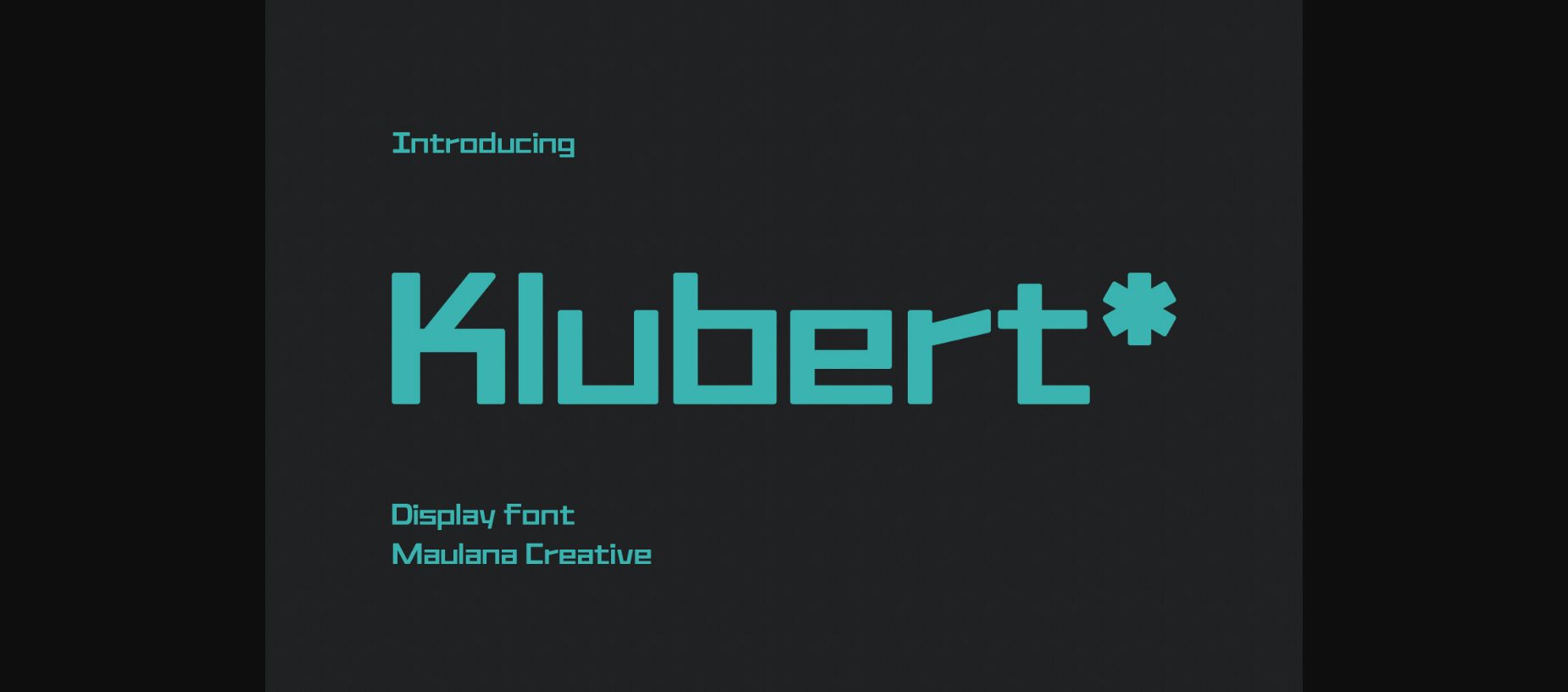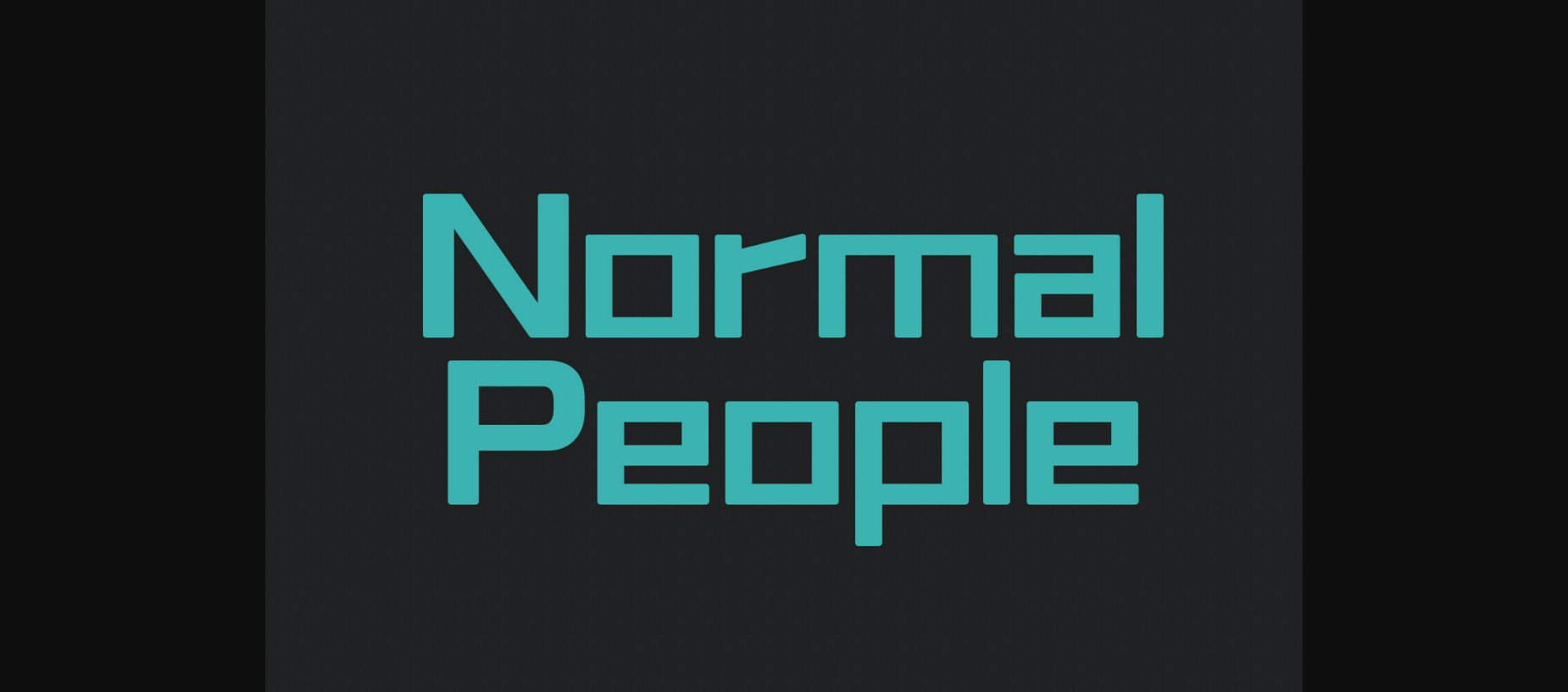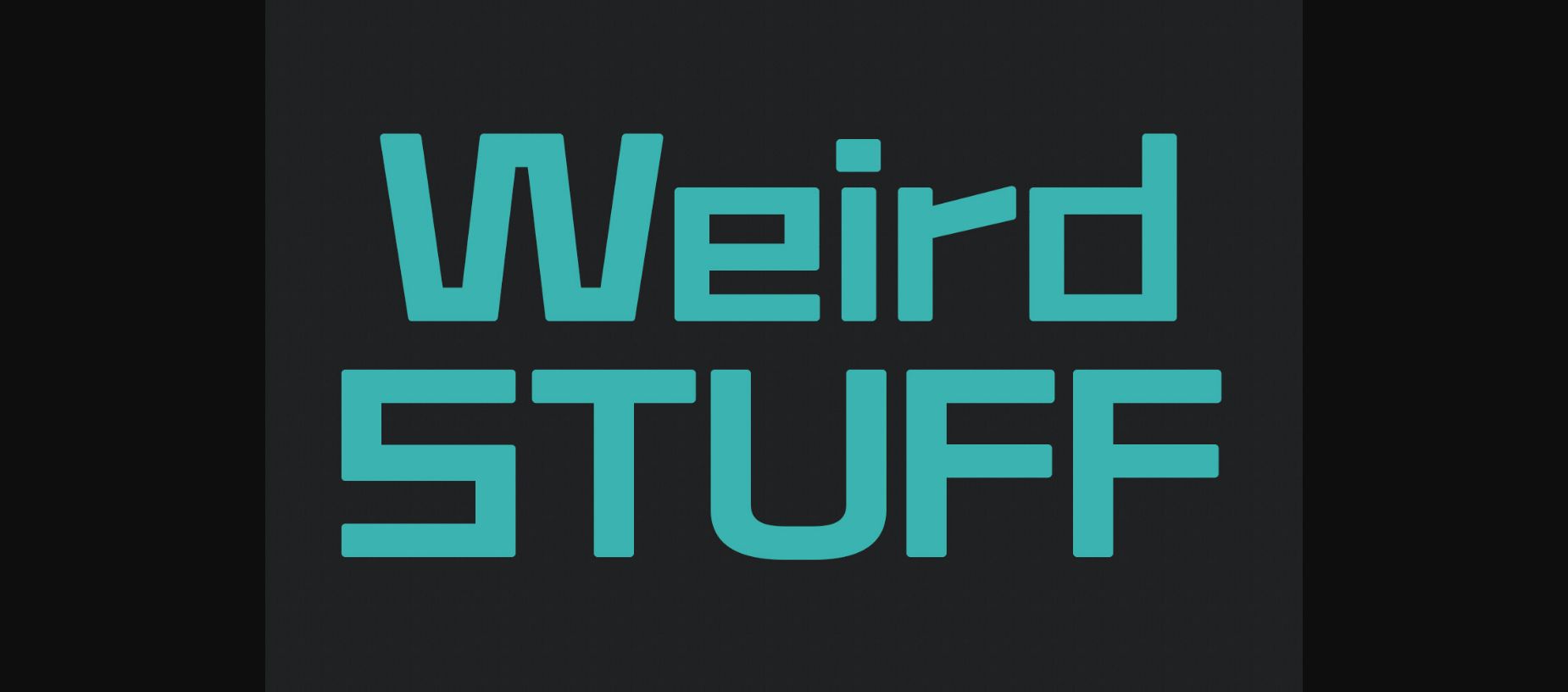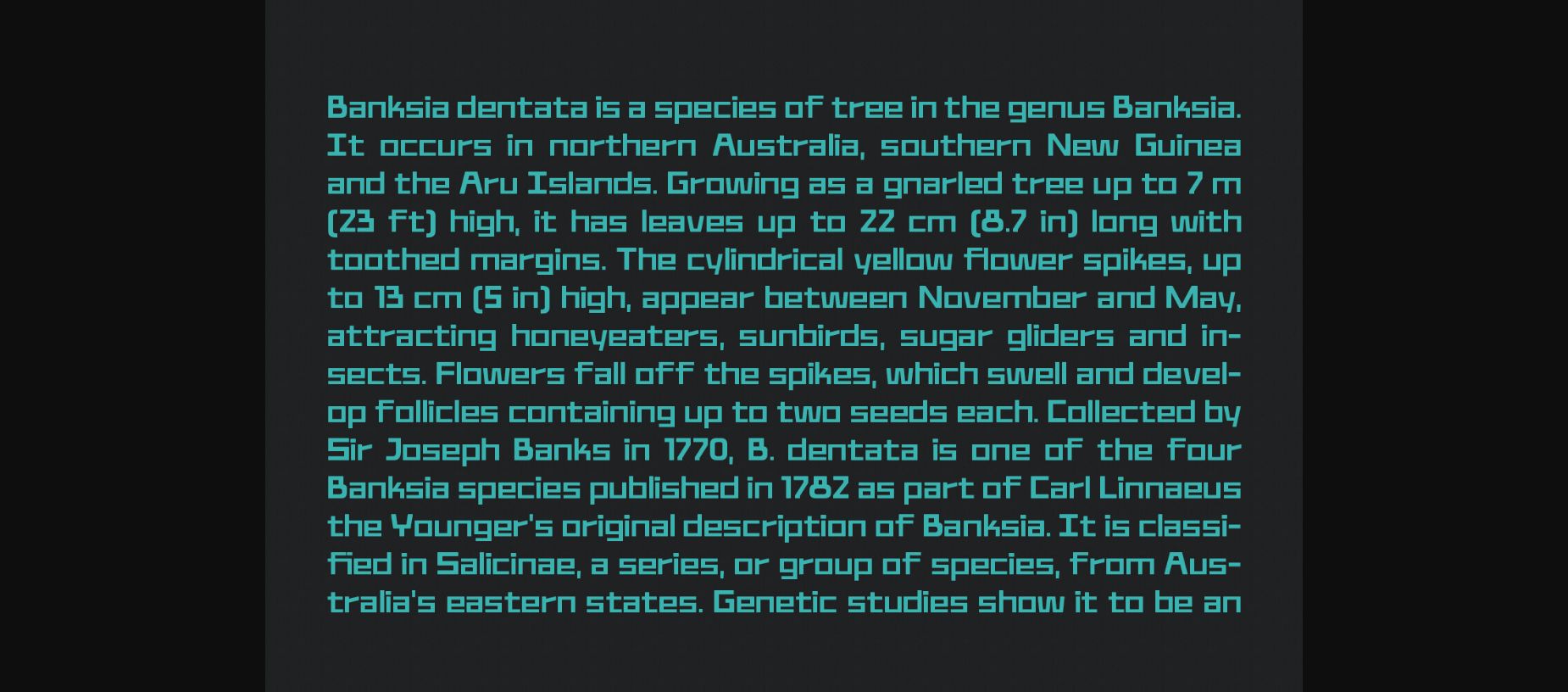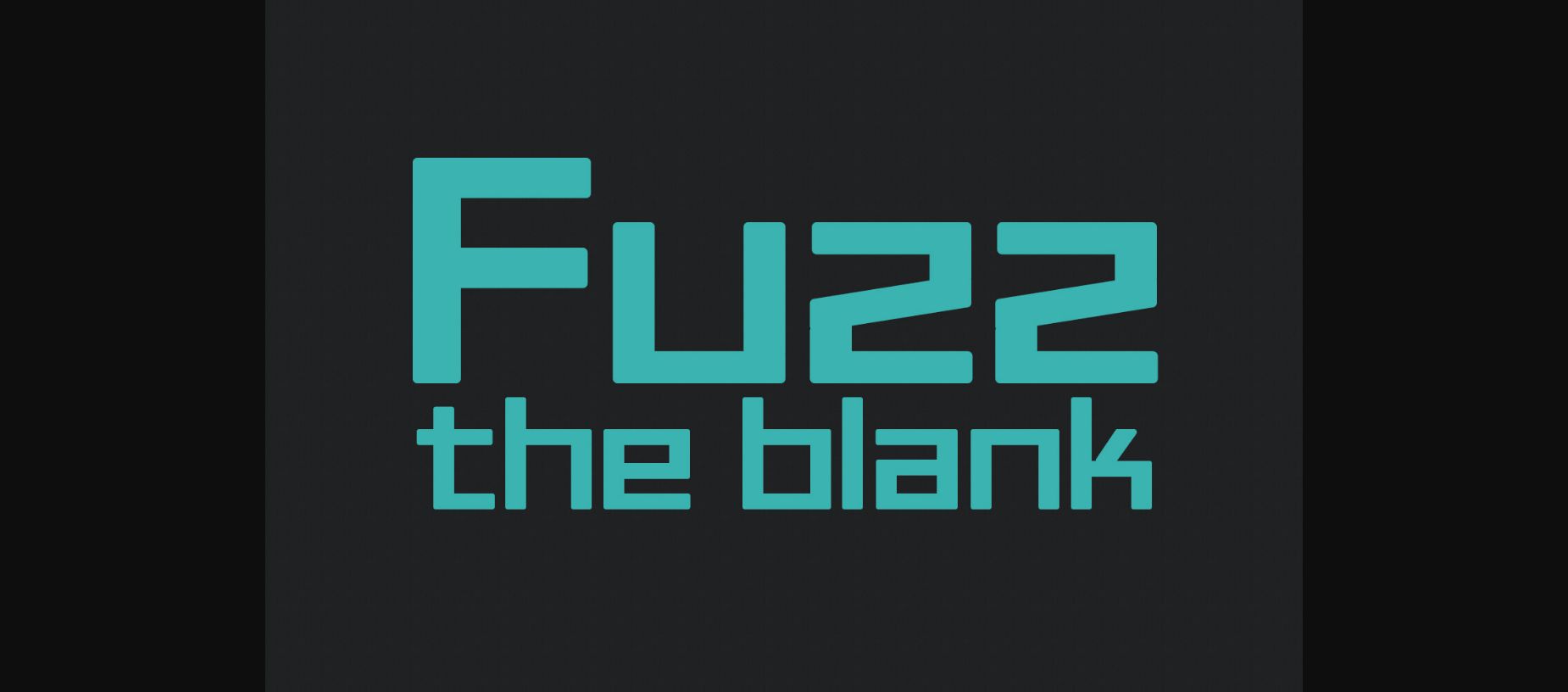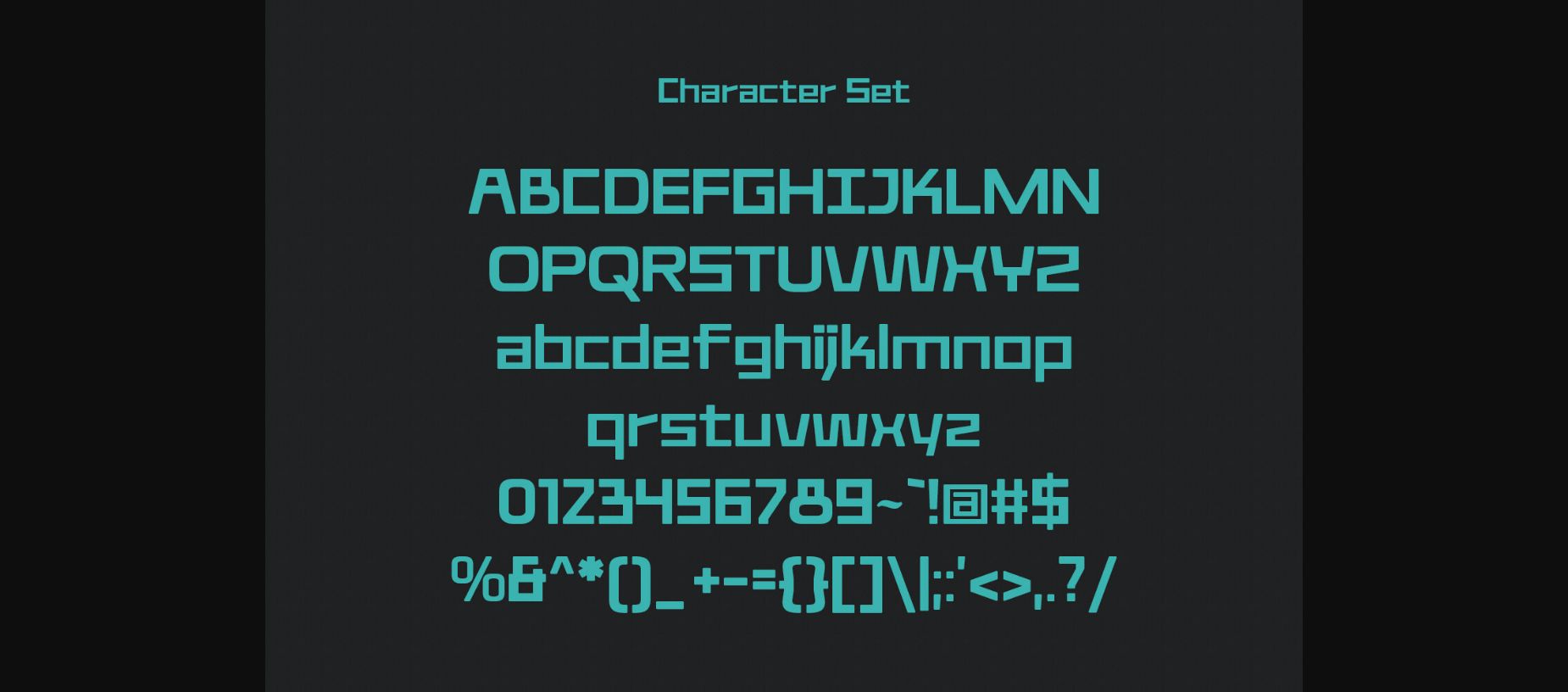
Klubert Font
About Klubert Font
Klubert is a squarish sans display font. Regular stroke, a fun character with a bit of ligature. This font is good for logo design, Social media, Movie Titles, book titles, short text even long text letters, and good for your secondary text font with script or serif. Make a stunning work with Klubert font.